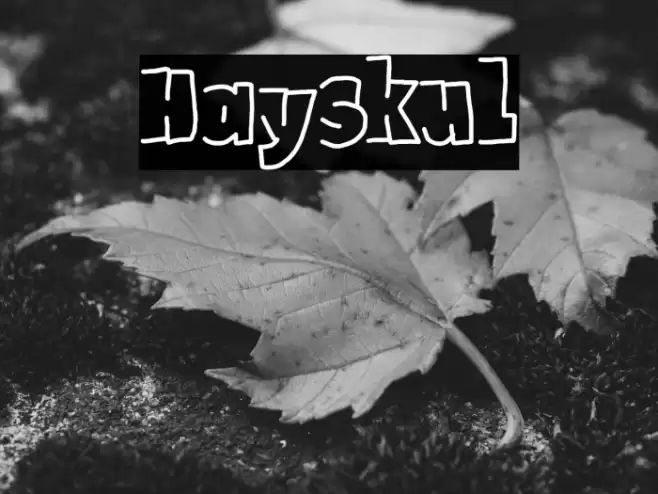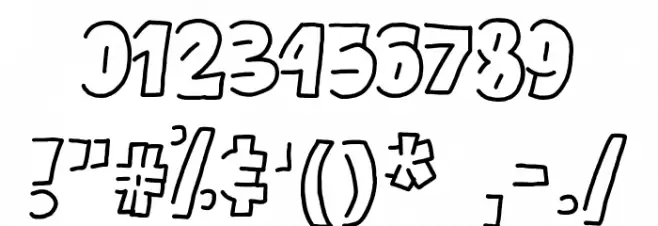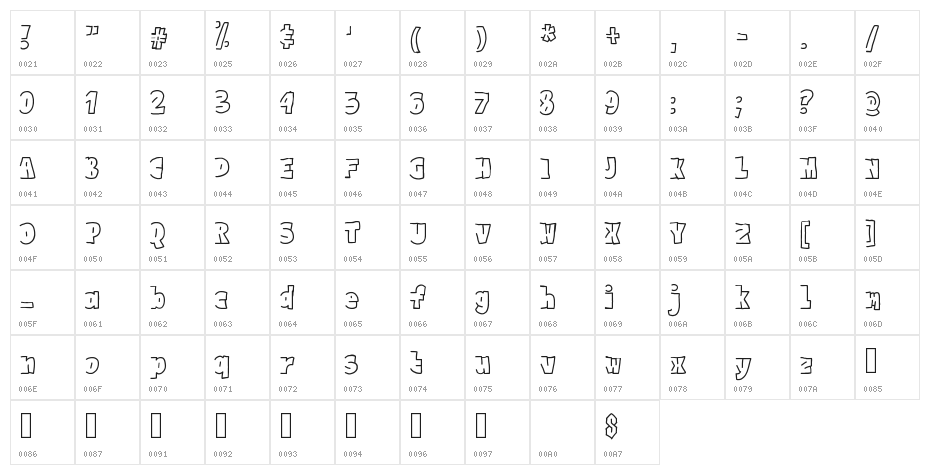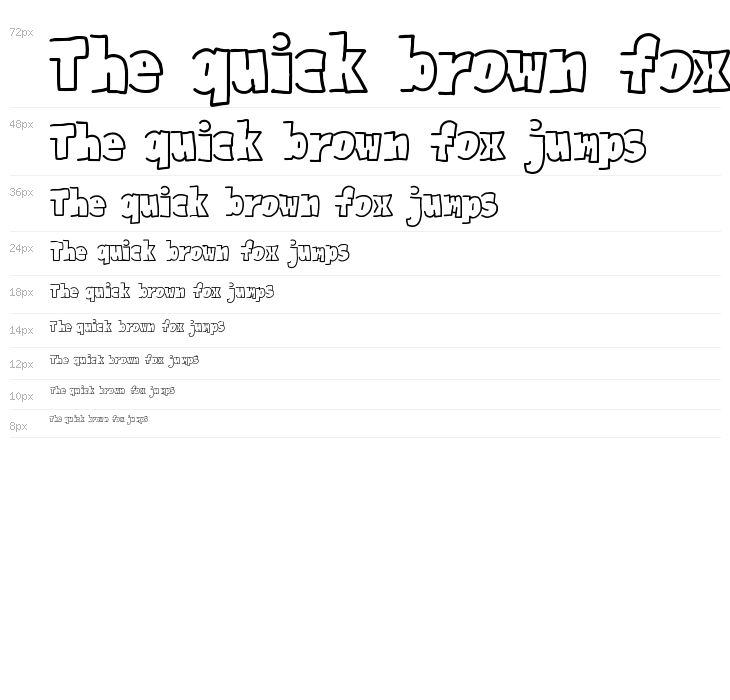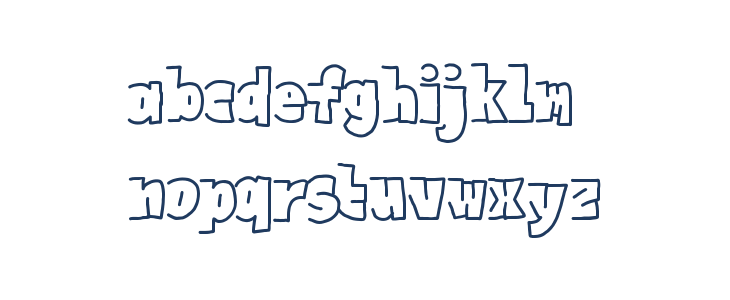
Hayskul Font
Hayskul Description
This font features a playful and bold design with a hand-drawn aesthetic. The letters are characterized by their thick, uneven strokes and slightly irregular shapes, giving them a whimsical and informal appearance. The uppercase and lowercase letters maintain a consistent style, with exaggerated curves and angles that add to the font's quirky charm. Numbers and special characters follow the same design principles, ensuring a cohesive look across all glyphs. The overall style is reminiscent of comic book lettering, making it ideal for projects that require a fun and engaging visual element.
A playful, hand-drawn font with bold, uneven strokes and a whimsical style from Comic fonts.
- Proposed Projects: Ideal for children's books, comic strips, playful branding, and casual event invitations.
- Overall Style: Playful, Whimsical